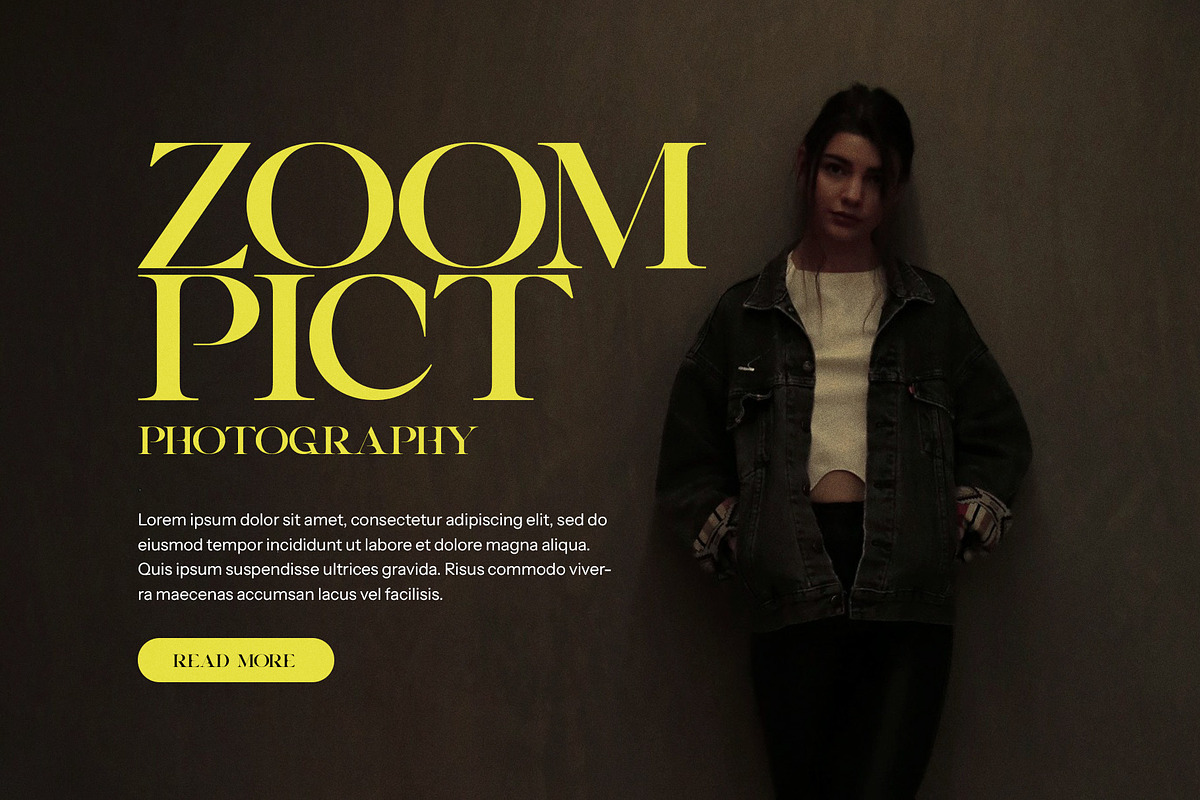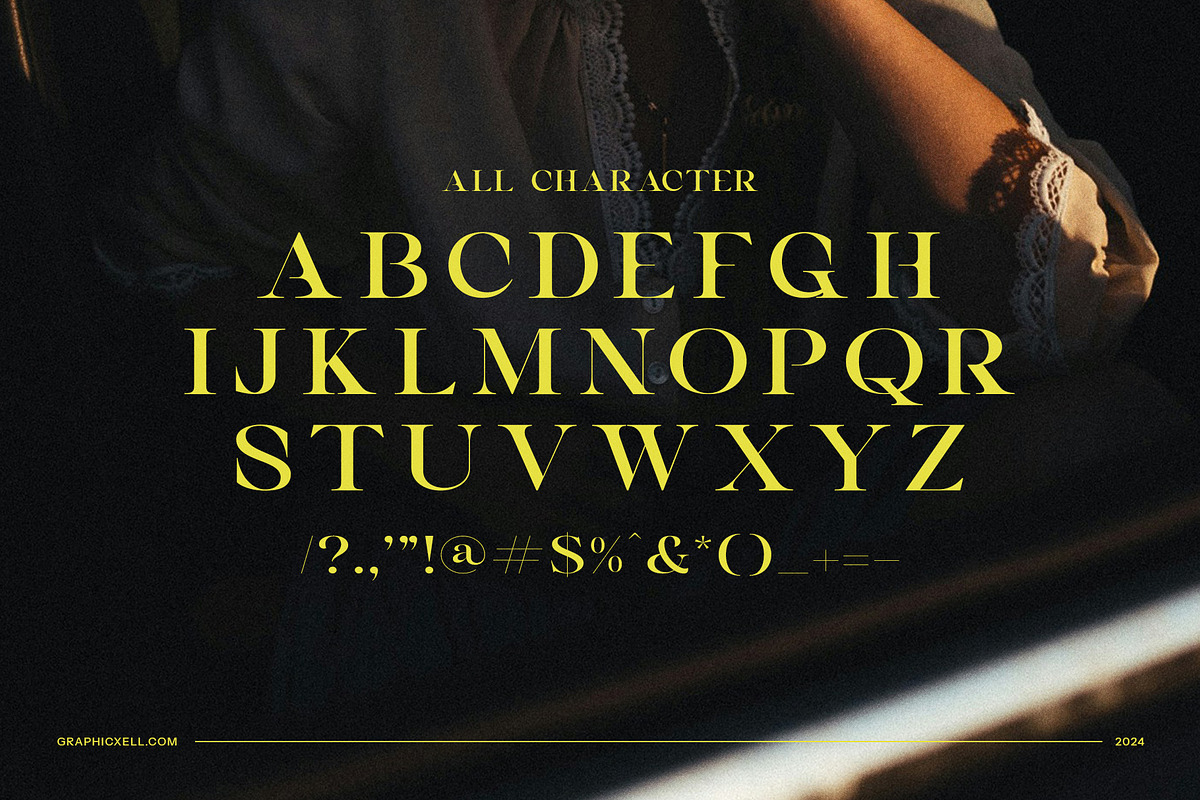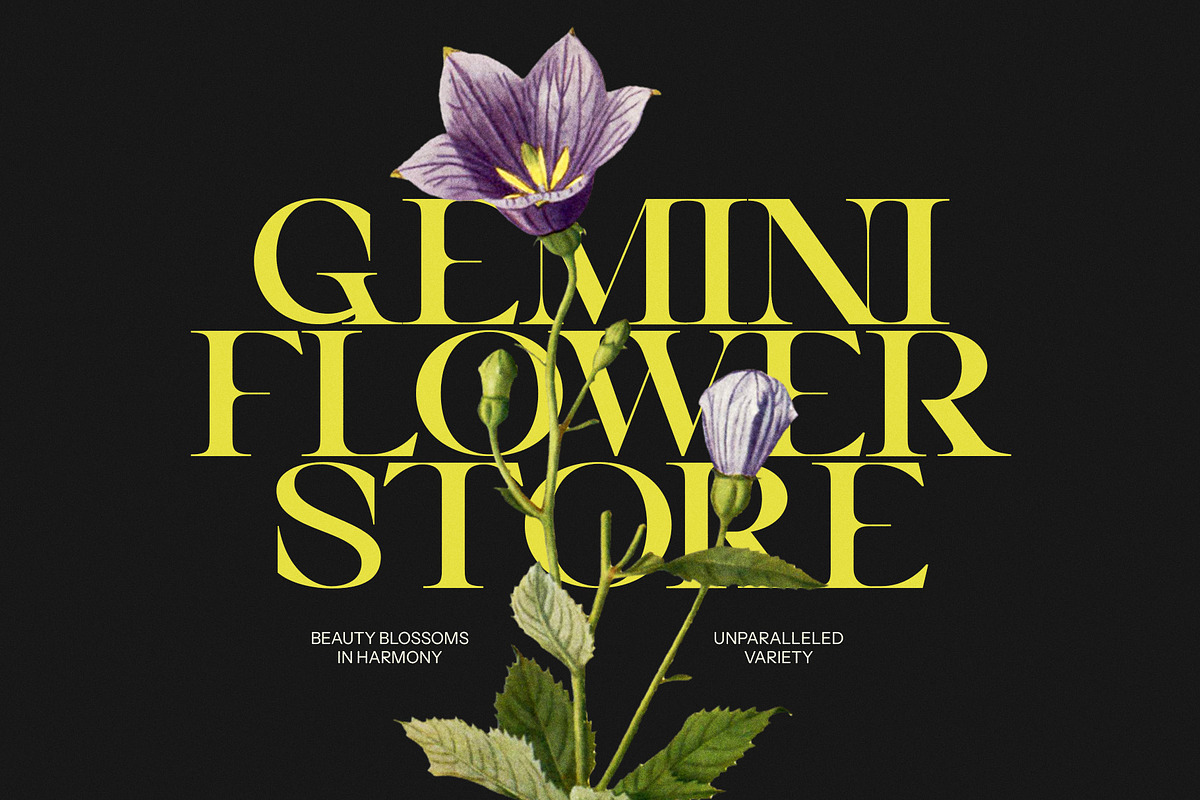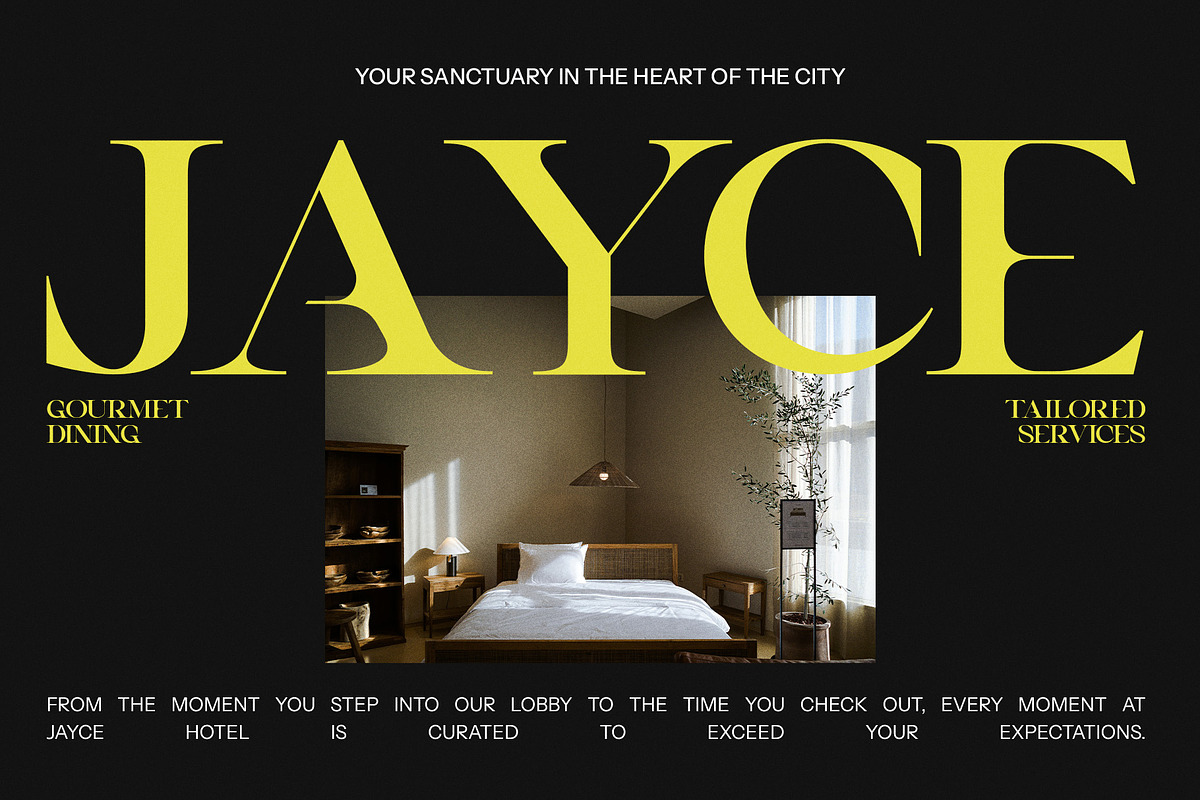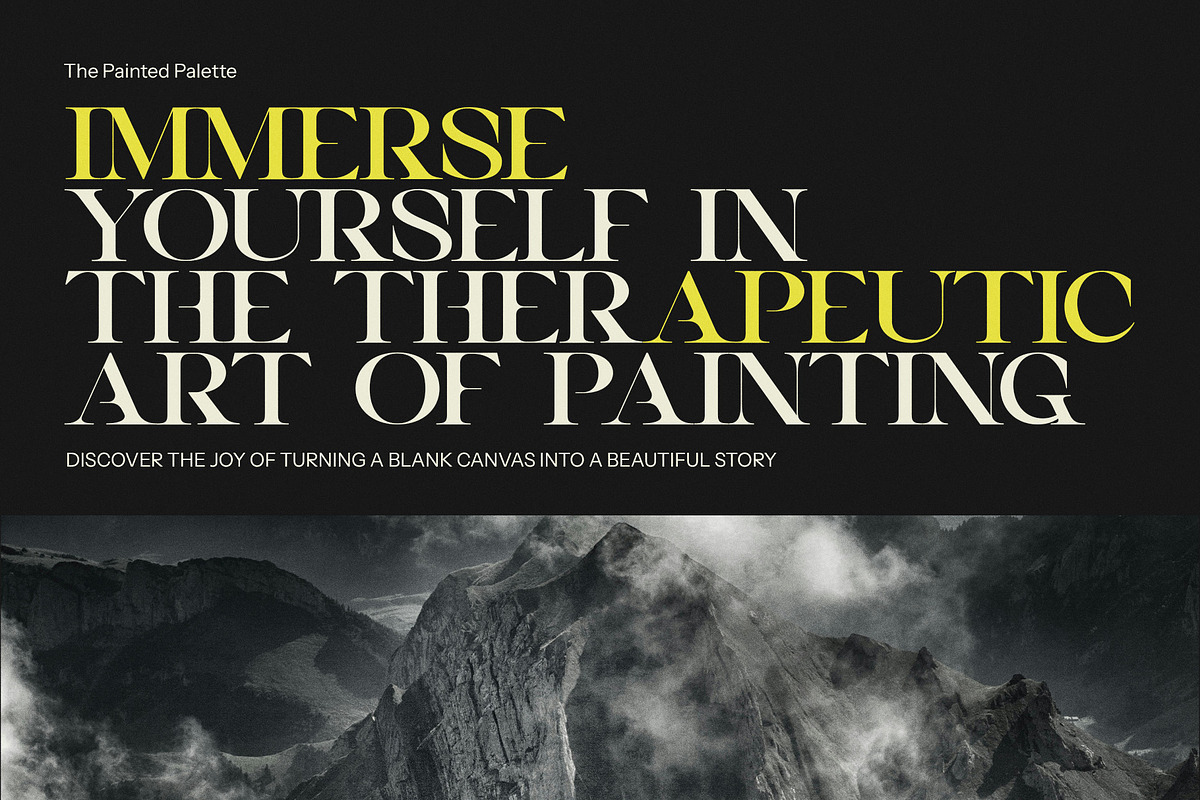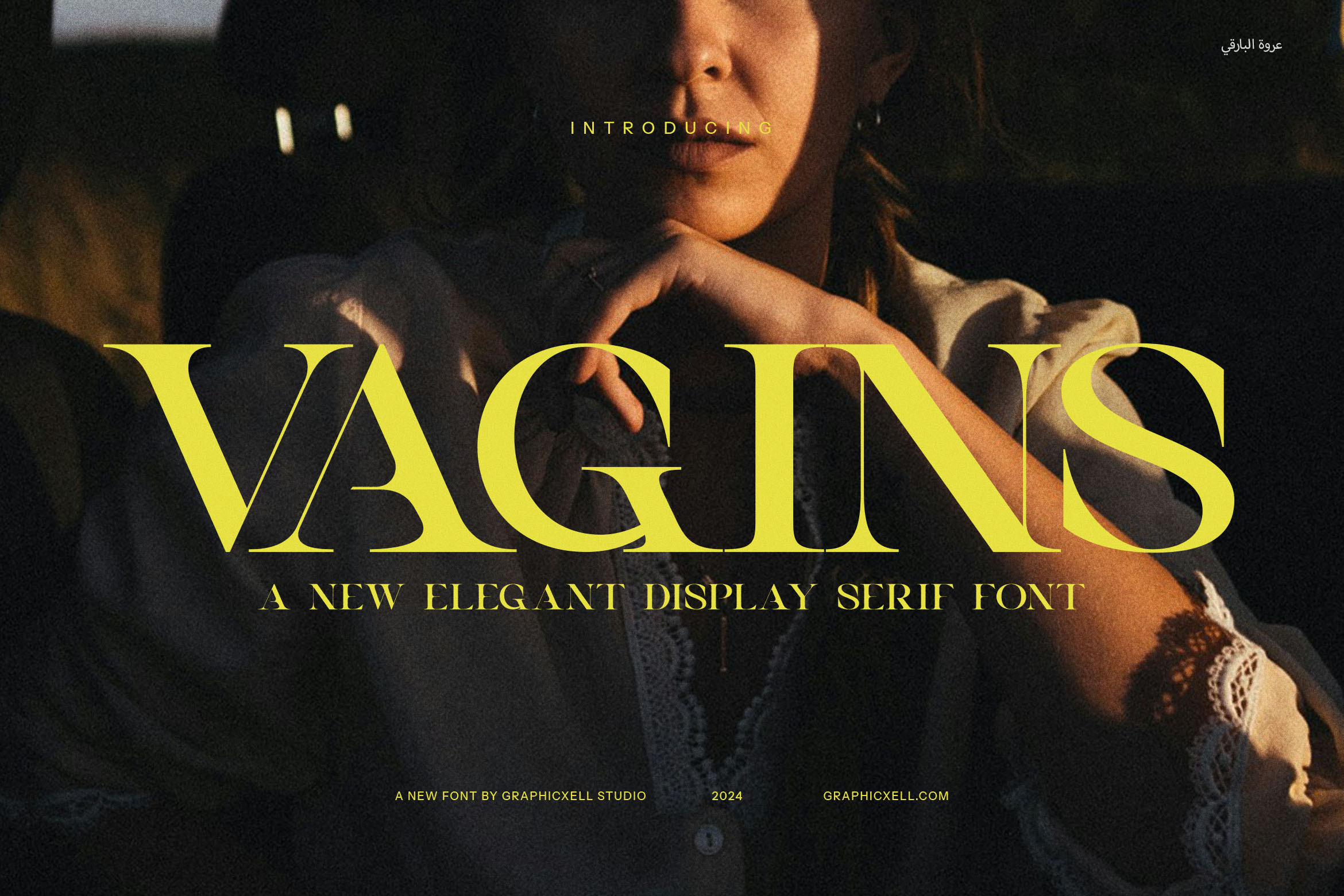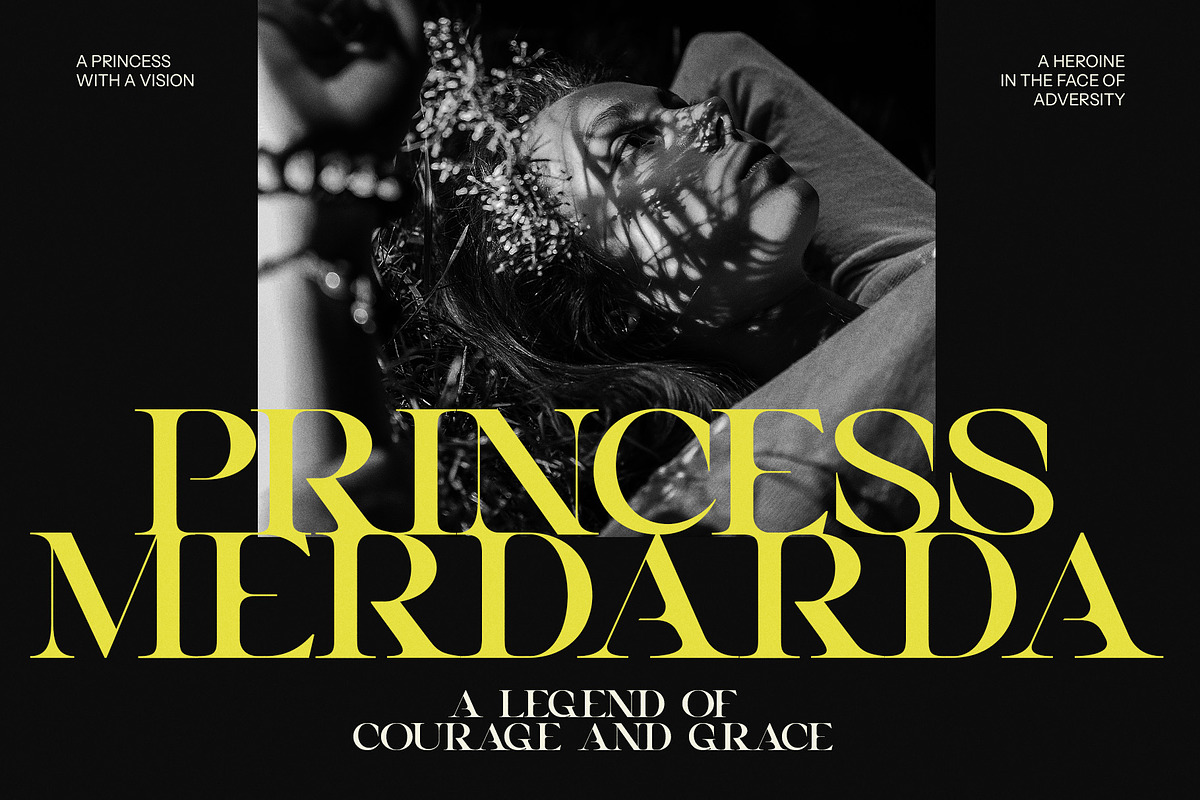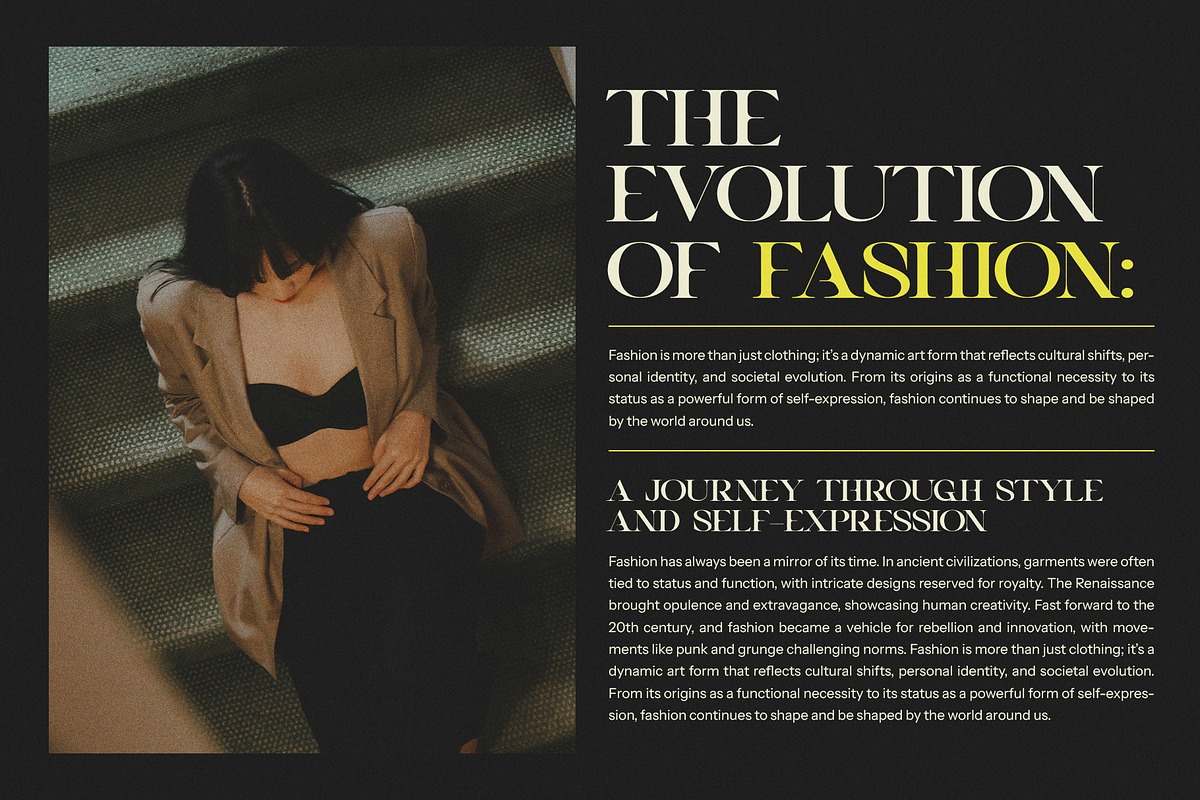
Vagins Vintage Serif Font
The Vagins Vintage Serif Font is a timeless typeface that embodies elegance and sophistication with a distinctive vintage charm. Designed with meticulous attention to detail, this font features refined serifs and graceful curves, making it the perfect choice for creating impactful and memorable designs. Its unique character exudes a classic yet modern feel, seamlessly blending traditional aesthetics with contemporary versatility.
Ideal for a wide range of creative projects, Vagins is particularly suited for branding, logos, and website designs where a touch of class is essential. Its delicate yet bold appearance elevates magazines, editorial layouts, and advertising campaigns, ensuring your message stands out with authority and style. The font’s timeless appeal also makes it a top choice for product packaging, boutiques, and luxury goods, infusing every design with a sense of prestige and quality.
Whether you’re crafting sophisticated menus for a high-end restaurant or designing eye-catching visuals for a boutique fashion line, Vagins delivers versatility with flair. Its beautifully balanced letterforms are equally effective in both headlines and body text, offering seamless integration across various mediums.
Designed to captivate and inspire, Vagins Vintage Serif Font is more than just a typeface—it’s a statement of elegance, creativity, and heritage. Elevate your designs with this iconic font, and make a lasting impression on your audience with its timeless beauty and artistic finesse.